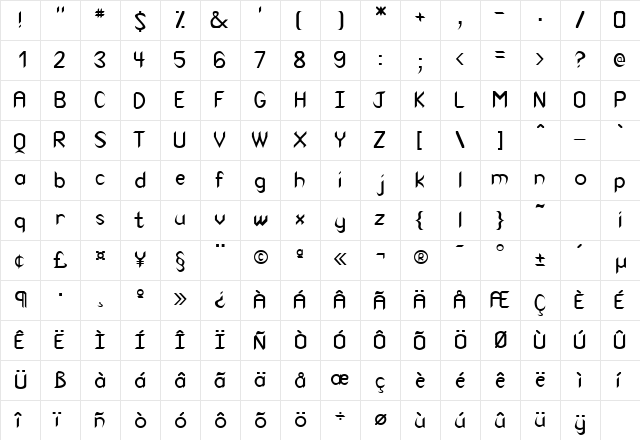
VirtuaSSK Regular
Design Context for VirtuaSSK Typeface
VirtuaSSK is a composed and adaptable typeface that performs quietly and consistently across a wide range of design contexts.
Pro Tip: Pair VirtuaSSK with a font of contrasting weight or personality to build a more expressive typographic hierarchy.